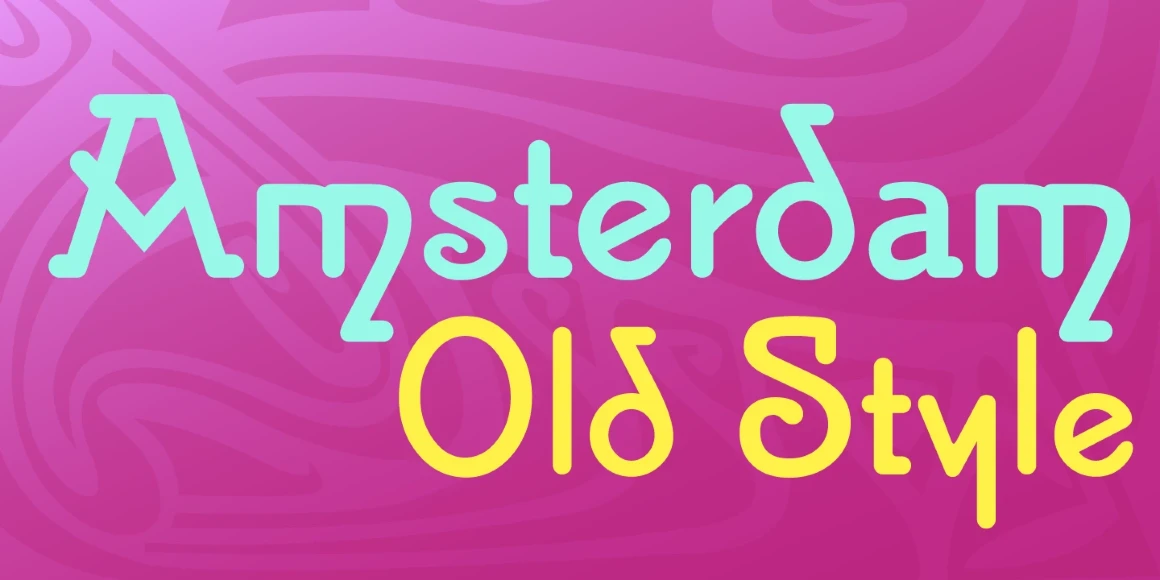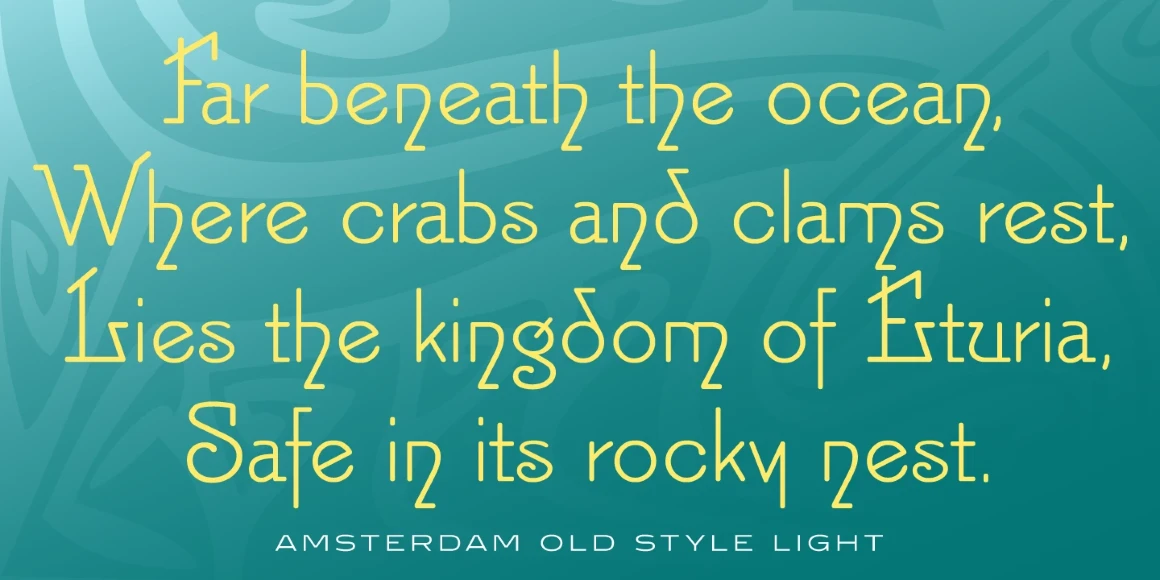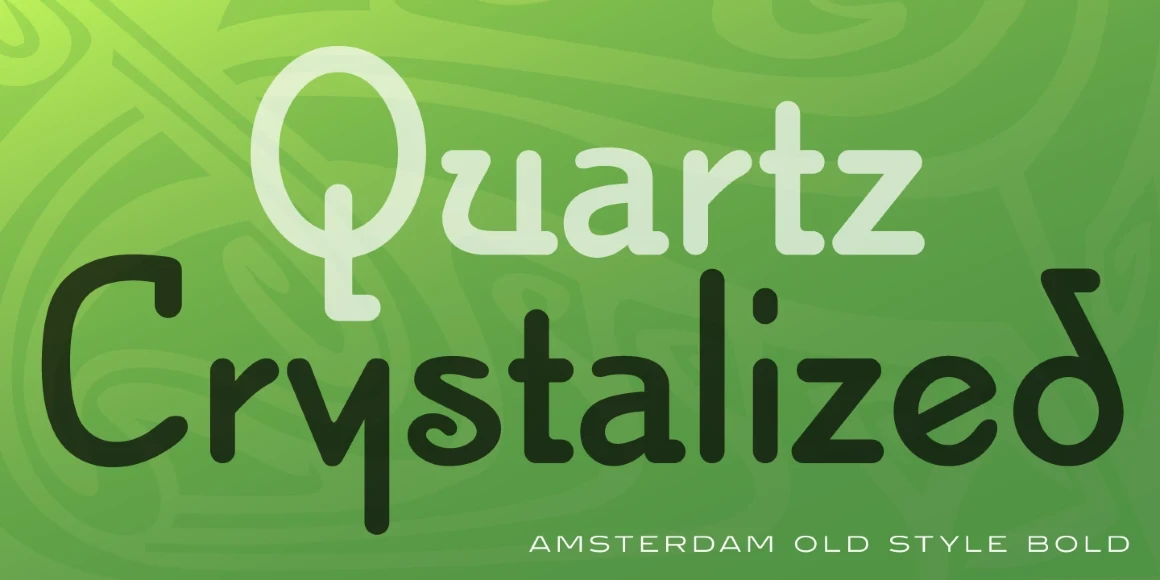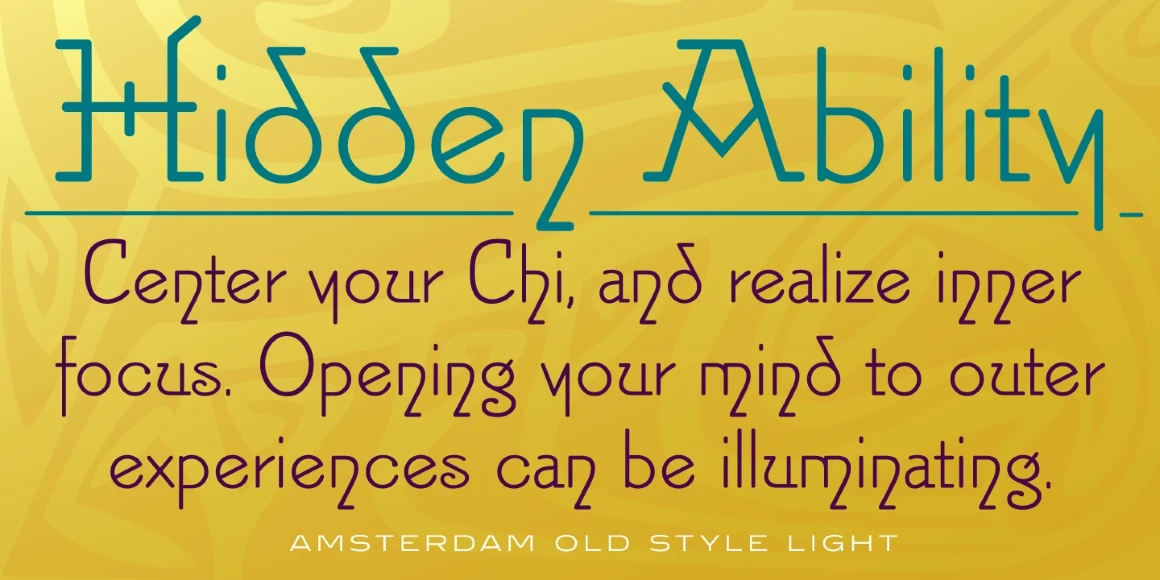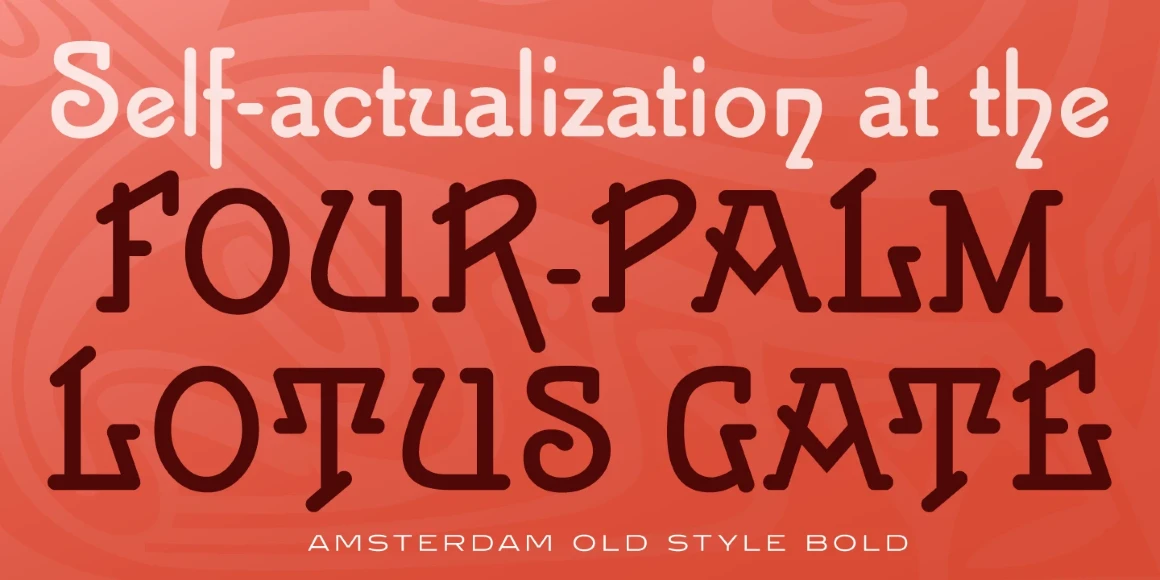
Amsterdam Old Style
Amsterdam Old Style Light
Amsterdam Old Style Bold
Amsterdam Old Style is a decorative font family with a small x-height. It was created by Steve Jackaman (ITF) in 1999, and was inspired by a typeface from an old wood type specimen book from the turn of the 20th century. Amsterdam Old Style’s mix of angular intersections and unusual curls gives it a unique “1920s” or spiritual feel, and it sets well in display, subhead, and text.